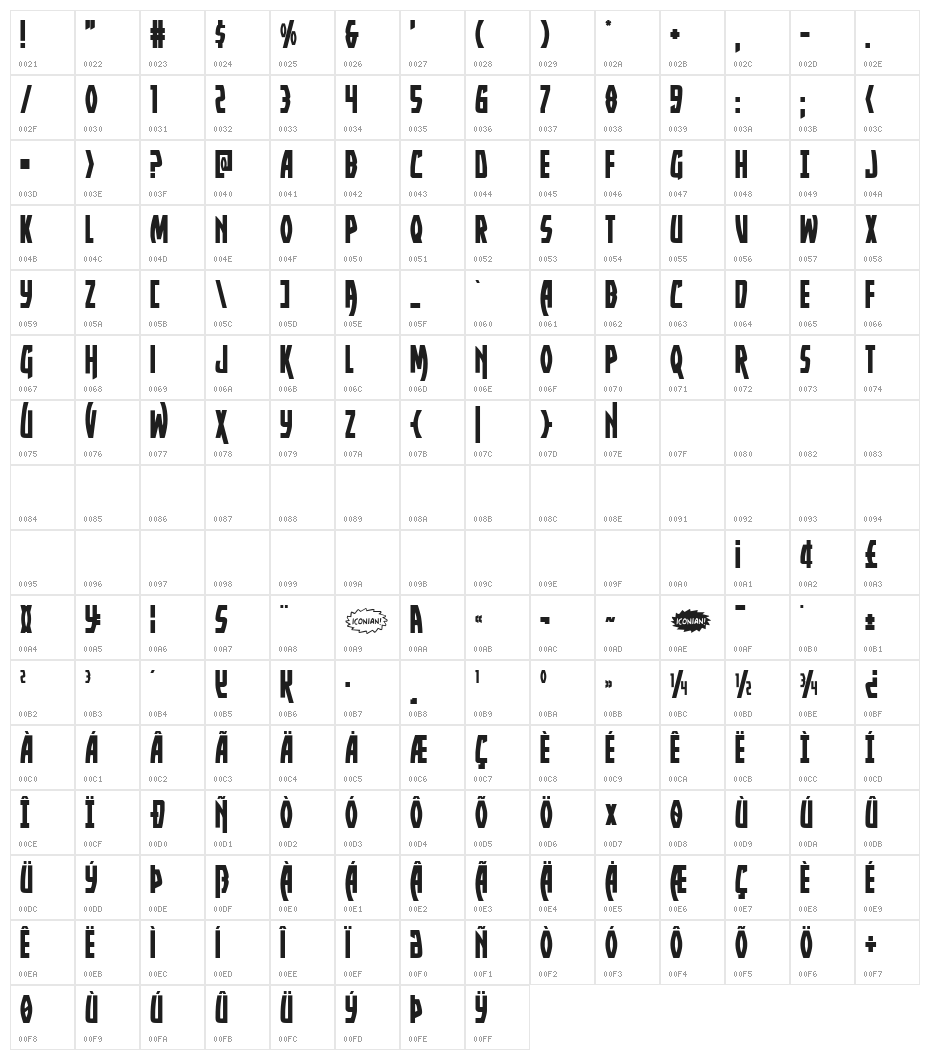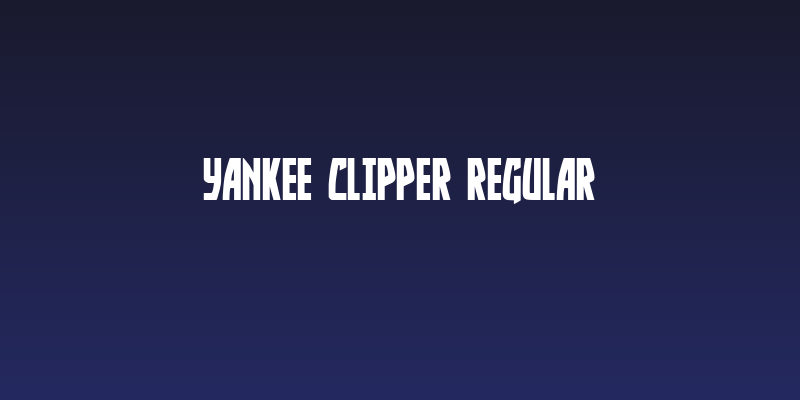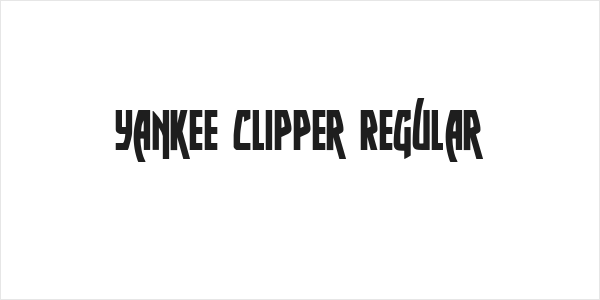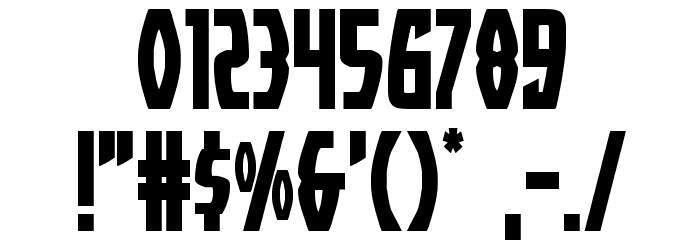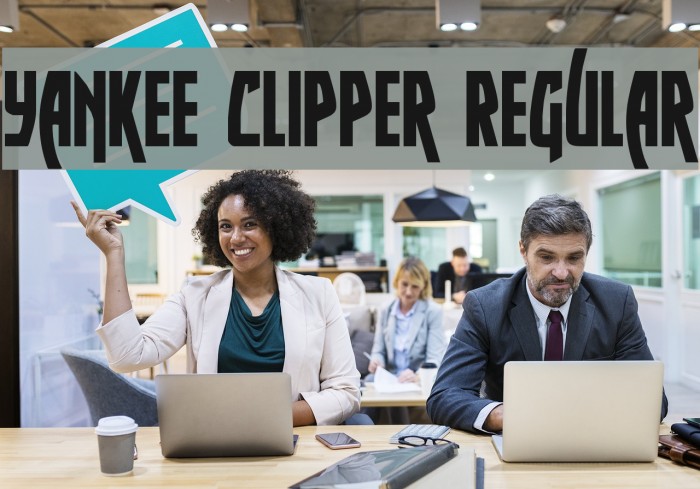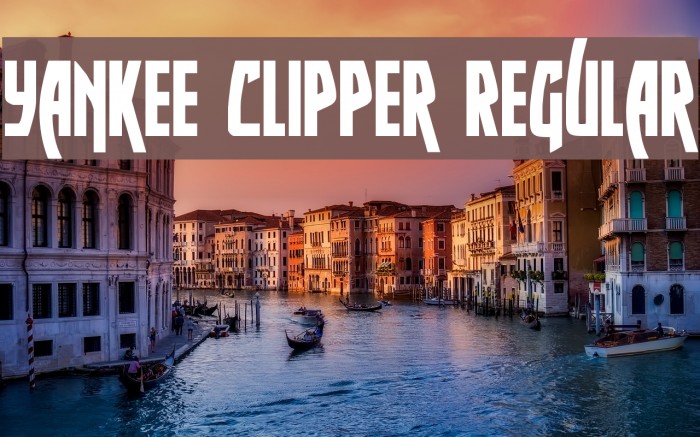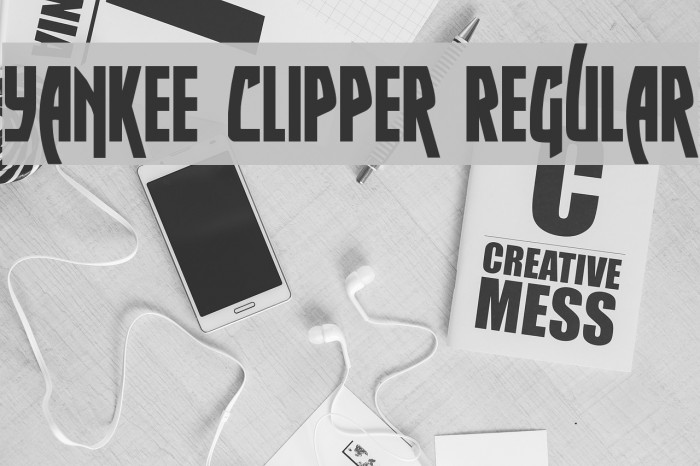
Yankee Clipper Regular Font
Yankee Clipper Regular Description
This font features a bold and striking design with a strong presence. The characters are angular and geometric, giving it a modern and edgy look. The uppercase letters are particularly prominent, with sharp edges and a slightly condensed form. The lowercase letters maintain the same boldness, ensuring consistency across the typeface. Numbers and special characters are equally bold, making them stand out effectively. This font is ideal for projects that require a strong visual impact.
| Proposed Projects | Ideal for posters, logos, and headlines that need a strong visual impact. |